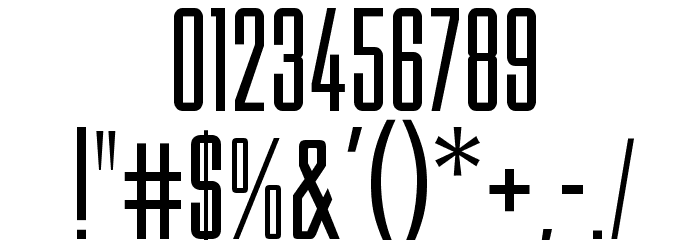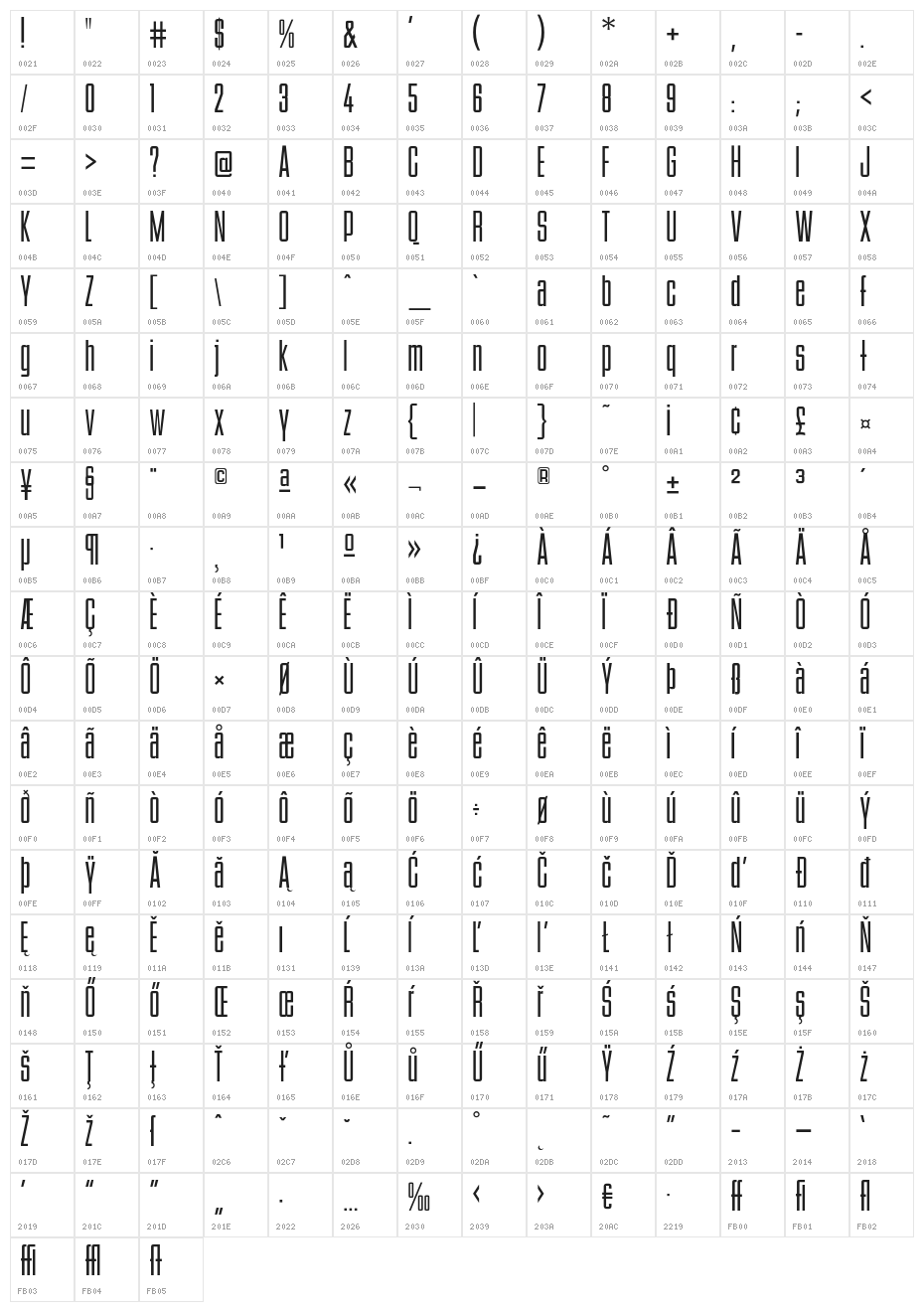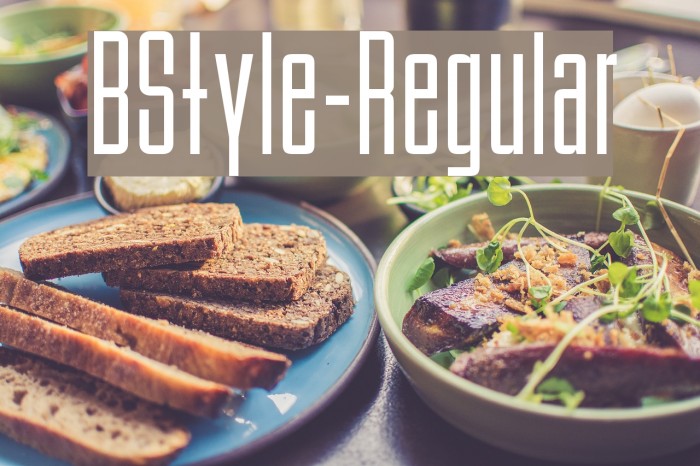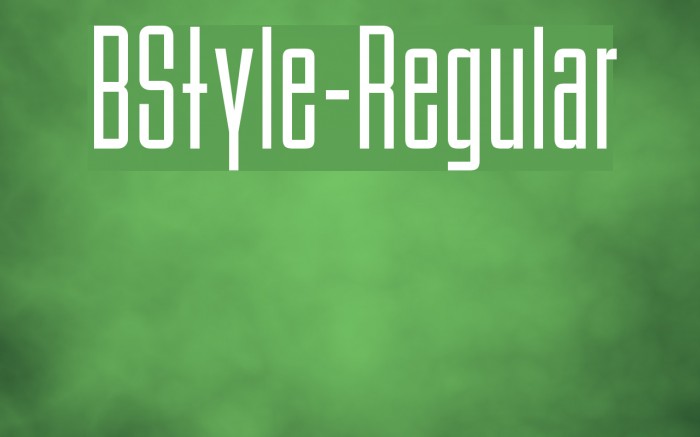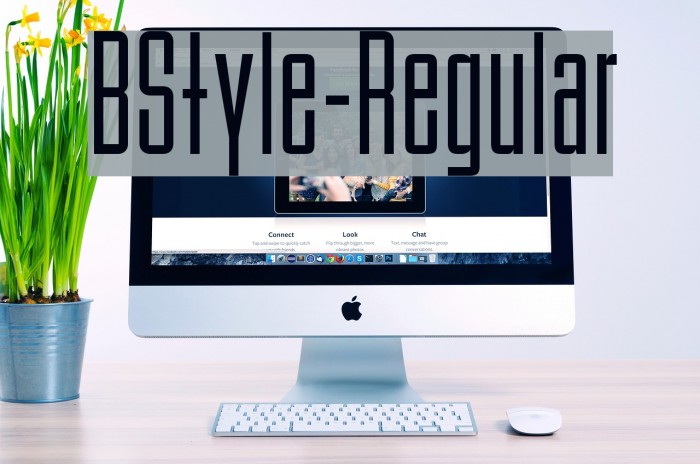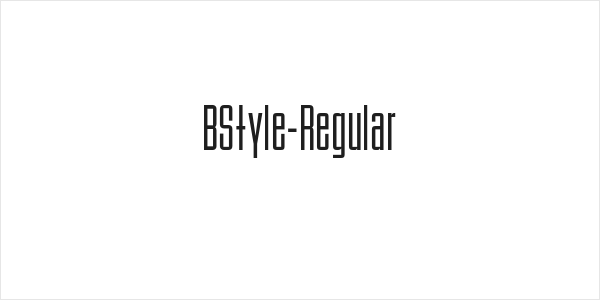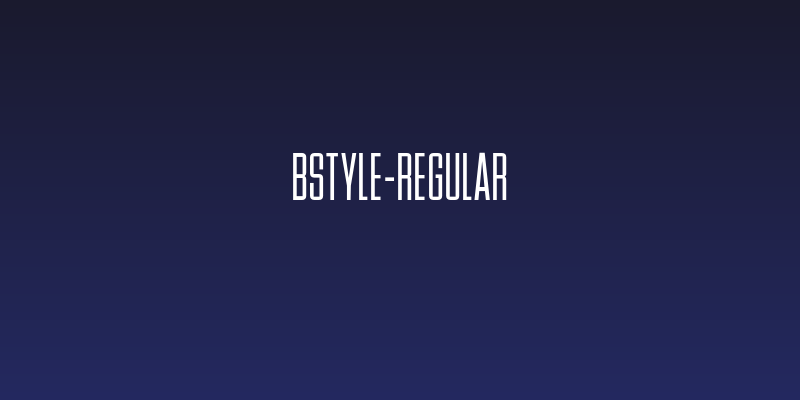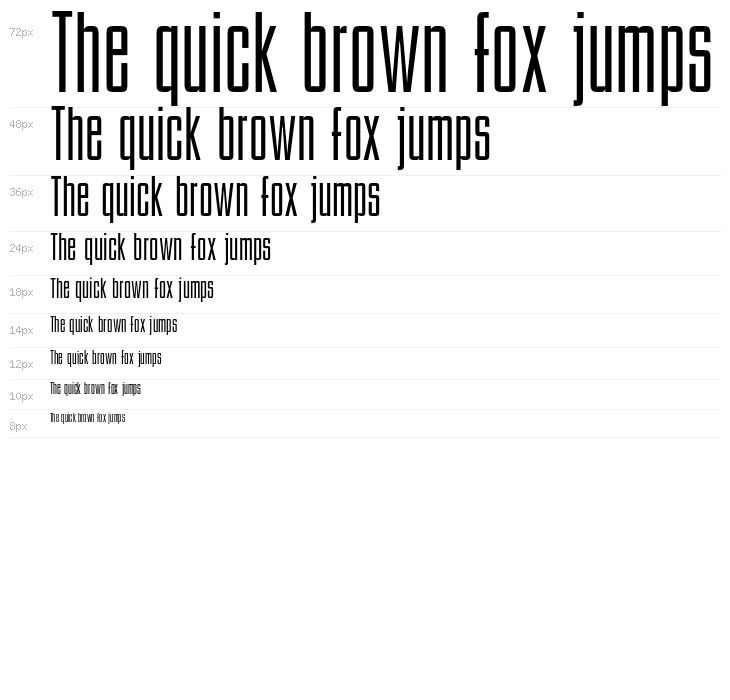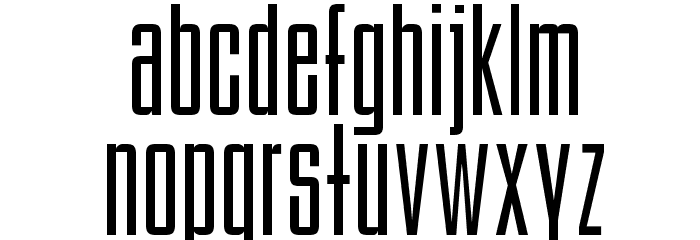
BStyle-Regular Font
BStyle-Regular Description
This font features a tall, narrow design with a modern and sleek appearance. The characters are elongated, giving them a condensed look, which is ideal for creating a strong visual impact. The strokes are consistent in width, providing a uniform and clean aesthetic. The uppercase and lowercase letters are well-proportioned, maintaining readability despite the condensed style. The numerals and special characters are designed to match the overall aesthetic, ensuring a cohesive look across all text elements. This font is perfect for projects that require a bold and contemporary feel.